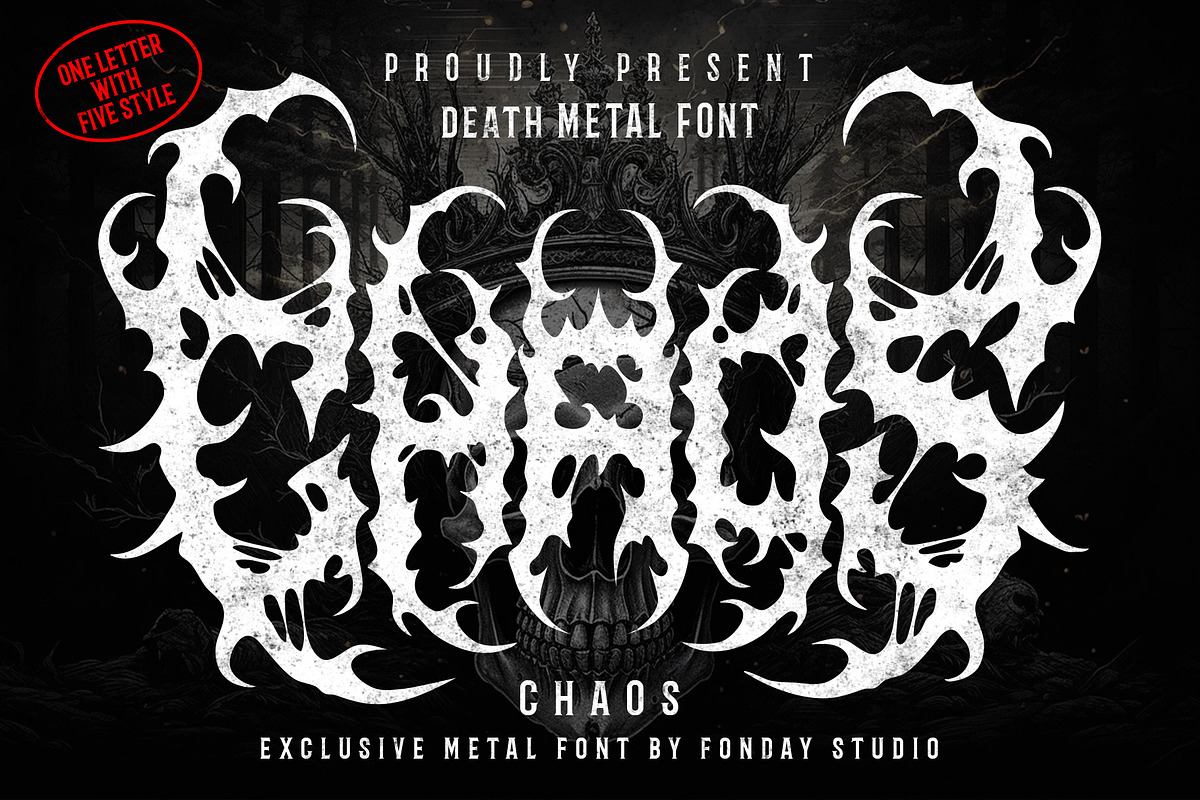
CHAOS – Black Metal Font Free Download is an intense, raw, and intricately designed typeface that captures the essence of underground metal culture. With razor-sharp edges, chaotic forms, and a dark, rebellious aesthetic, CHAOS is perfect for black metal band logos, album covers, concert posters, horror artwork, and apparel designs that thrive on aggression and mystique.
Crafted to reflect the brutal visual identity of extreme music, CHAOS – Black Metal Font Free Download is not just a typeface—it's a visual assault. Its jagged, thorn-like letterforms make it ideal for bold, atmospheric branding where legibility bends to artistry and emotion.